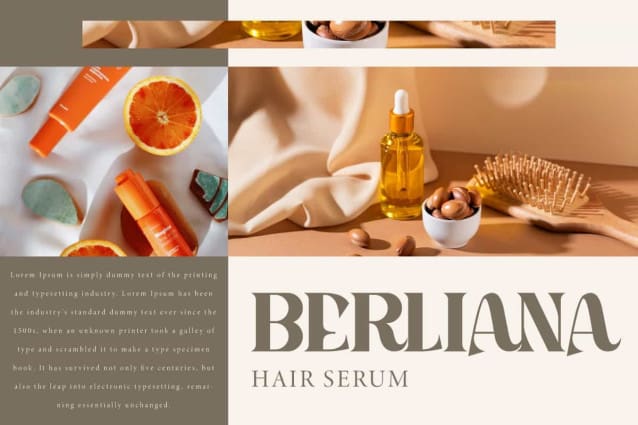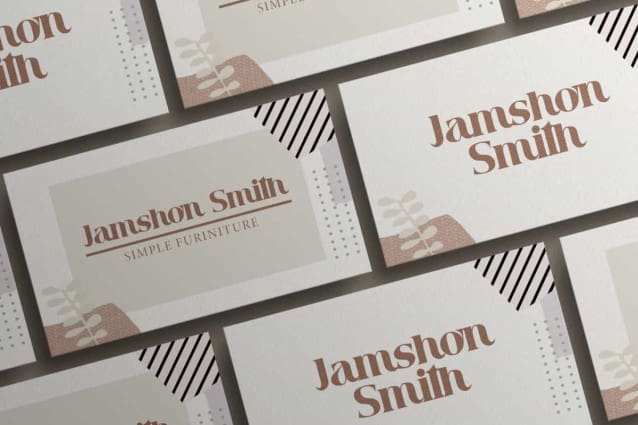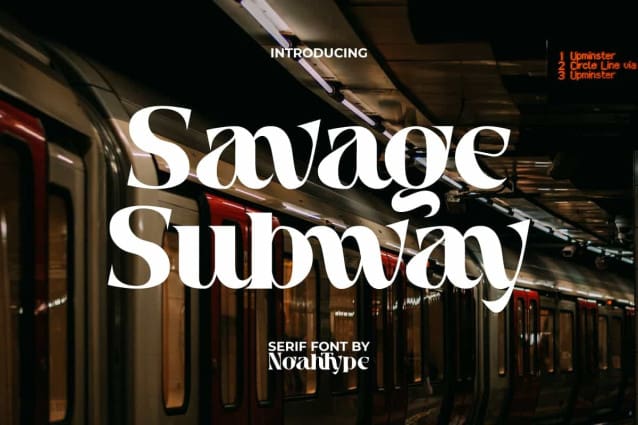
Savage Subway Font
Savage Subway Font is a stylish serif display font with elegant look. This font has unique and different letter curves so it looks very attractive. It will be perfect for any designs, such as brand image, cover, custom design, invitation, label, marketing material, poster, product packaging, quote, signage, stationery, web, and many more!
Savage Subway Font includes full set of Uppercase and Lowercase Basic Characters, Numerals, Punctuation, and Symbol. This font has awesome characters and will be perfect choice for many industries, such as accessories, advertising, café, fashion, game, home furniture, perfume, printing, publishing, restaurant, sport, etc.